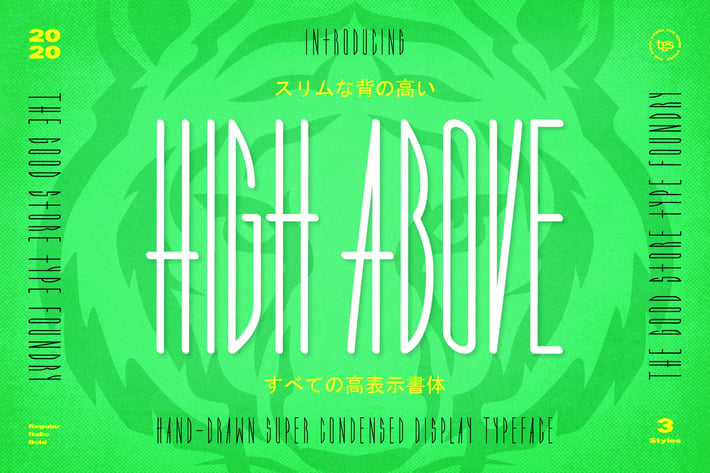
High Above Typeface + Flyers + Instagram + Badge
A hand-drawn Super Condensed Display Typeface that comes in Regular, Bold, & Italic styles.
High Above Typeface is a Handmade Sans Display Typeface